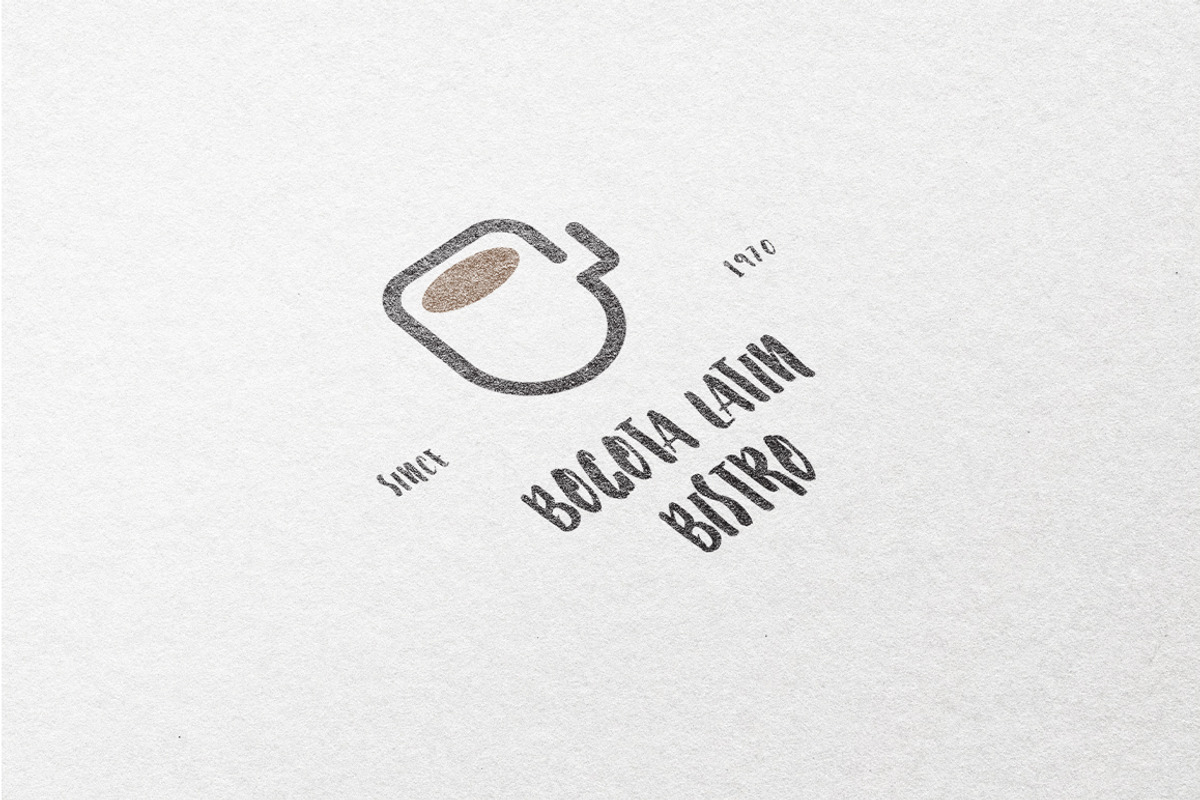
Starshine Script
I represent to your attention an incredible 100% handwritten font. VVery suitable for greeting cards, branding materials, business cards, quotes, posters, and more!